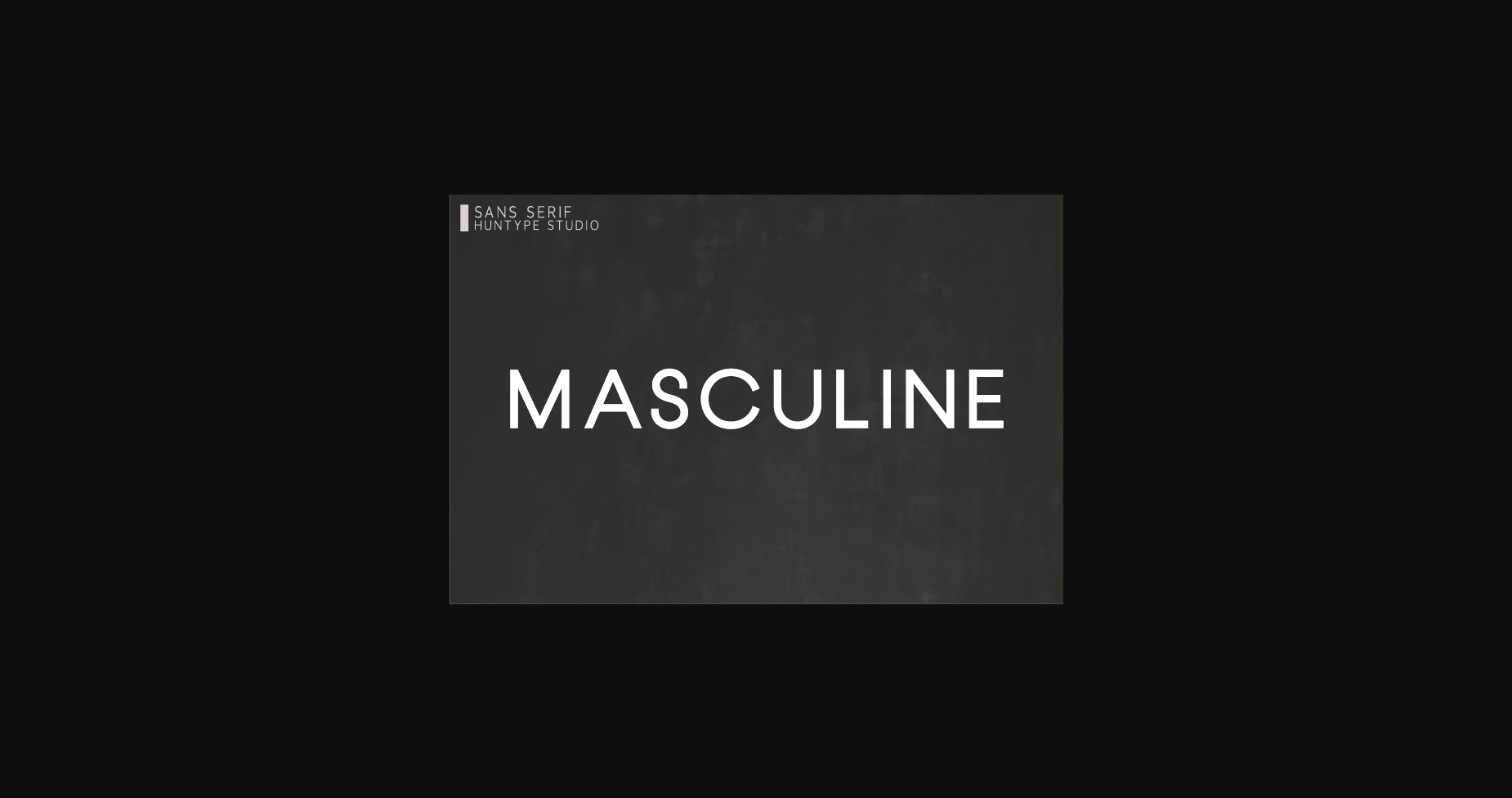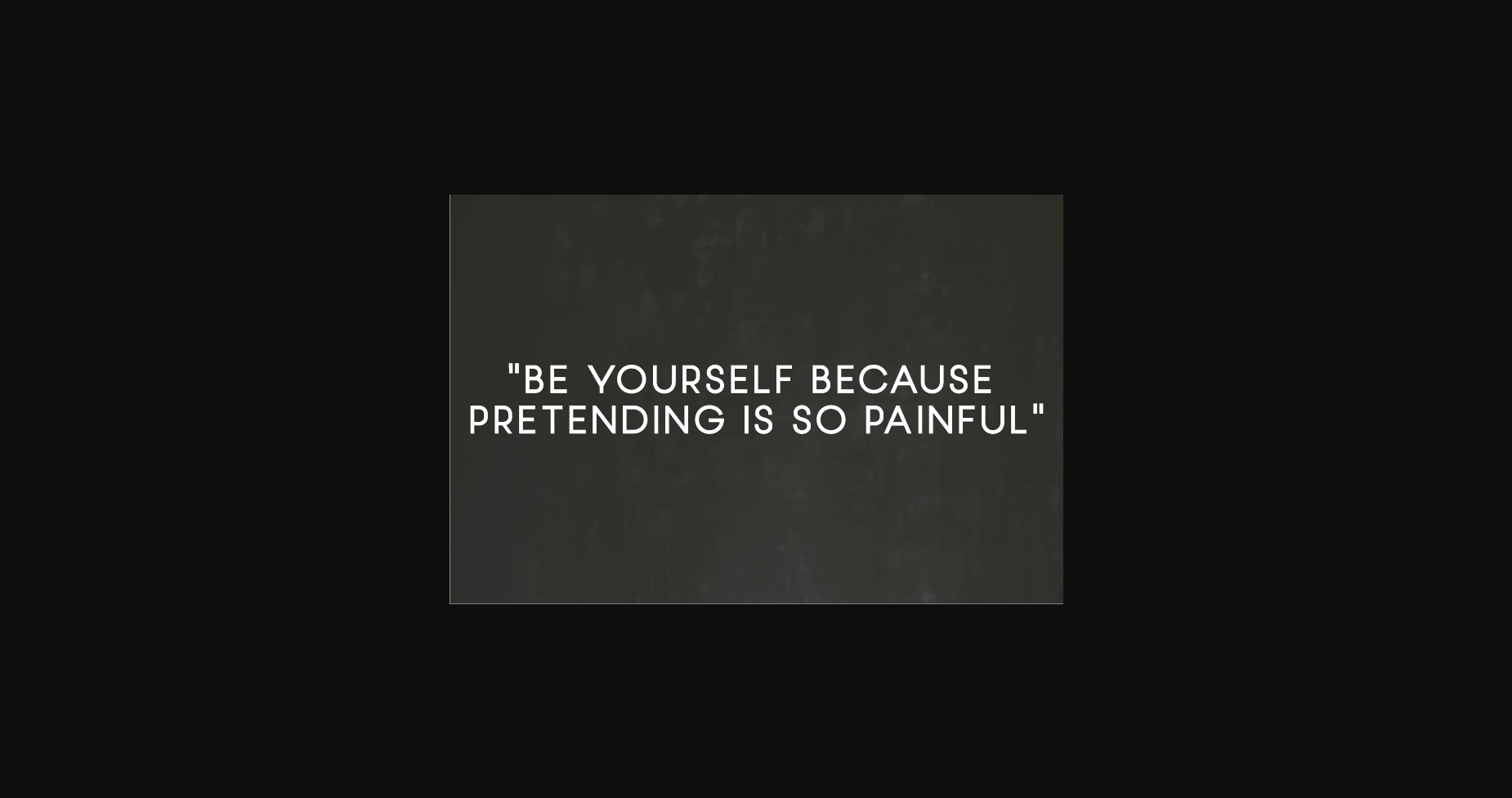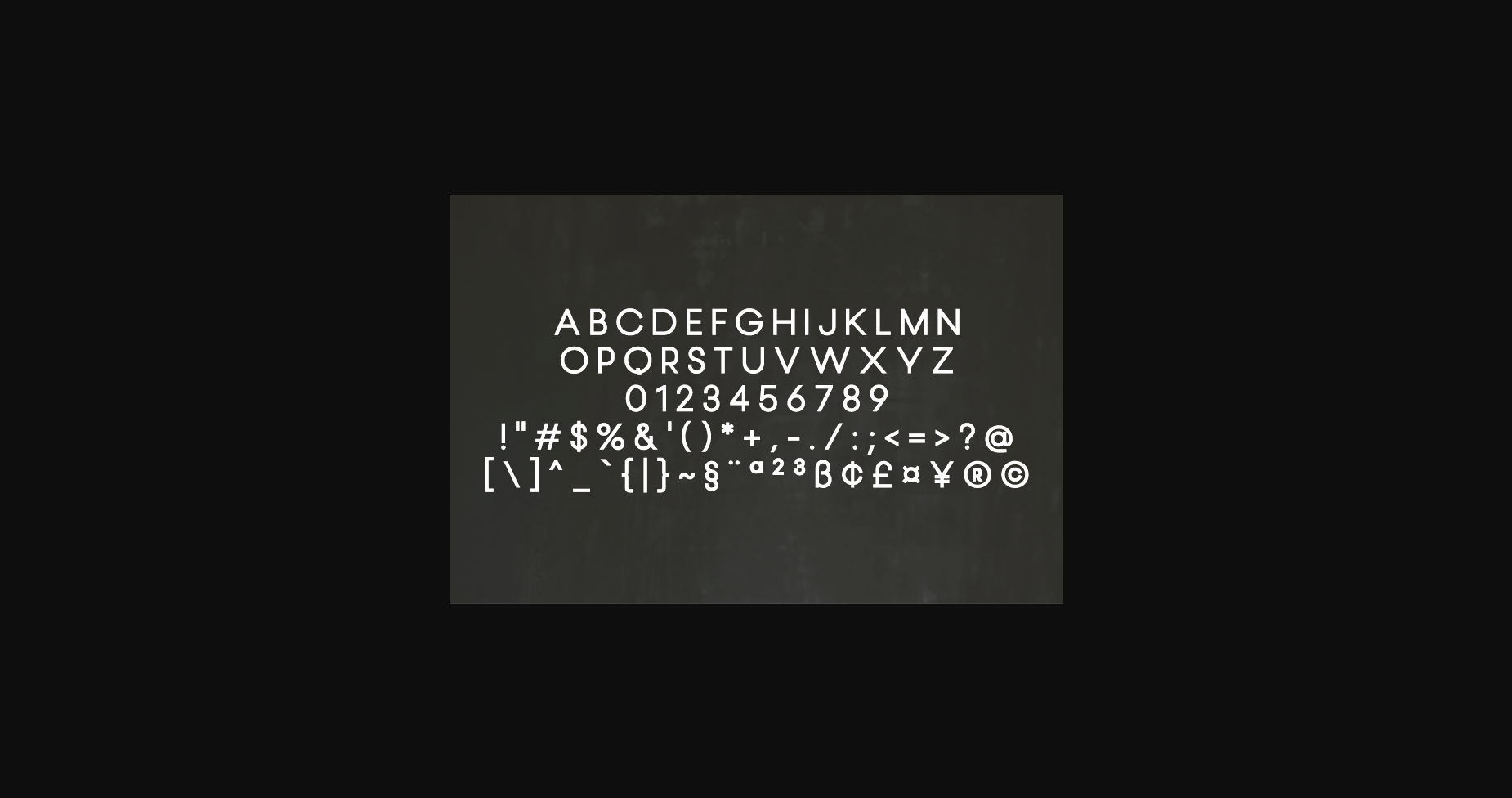
Masculine Font
About Masculine Font
Masculine is an all-caps sans serif font that will impress you with its versatility. With smooth and clean lines and just a touch of contrast, this font works beautifully for logos, branding, and web headings.